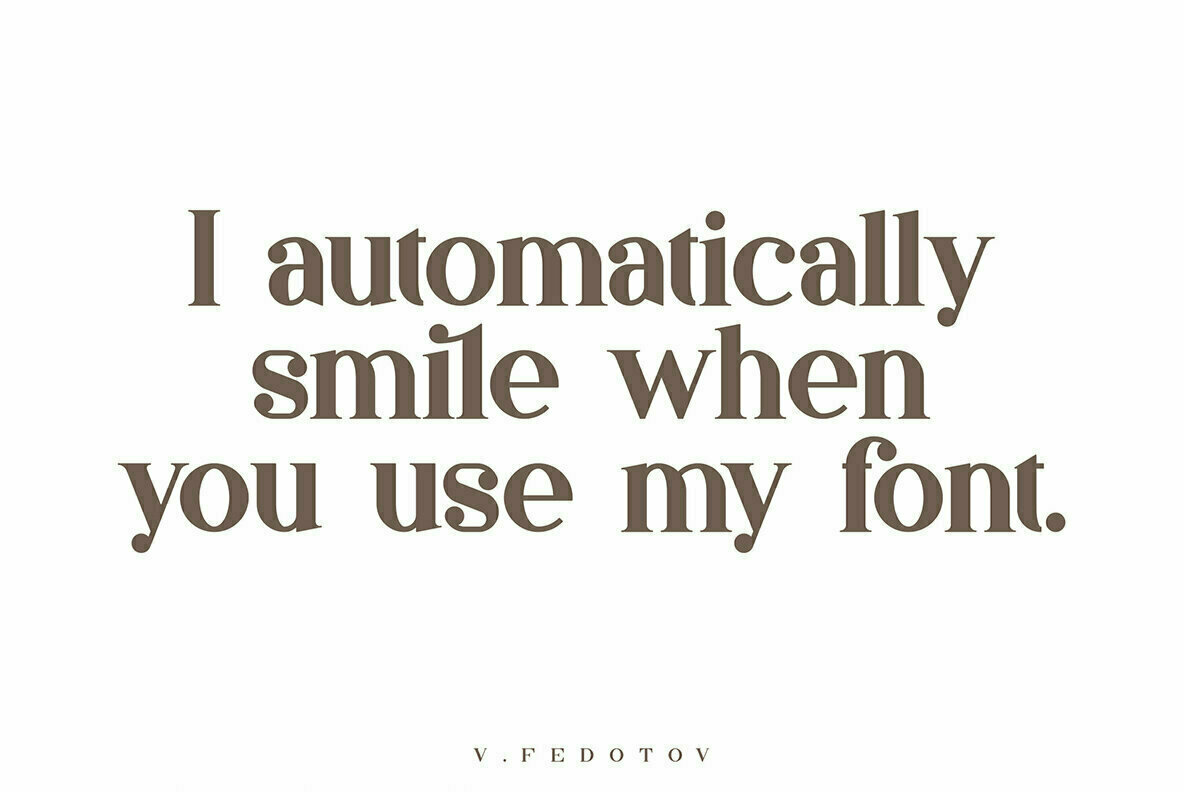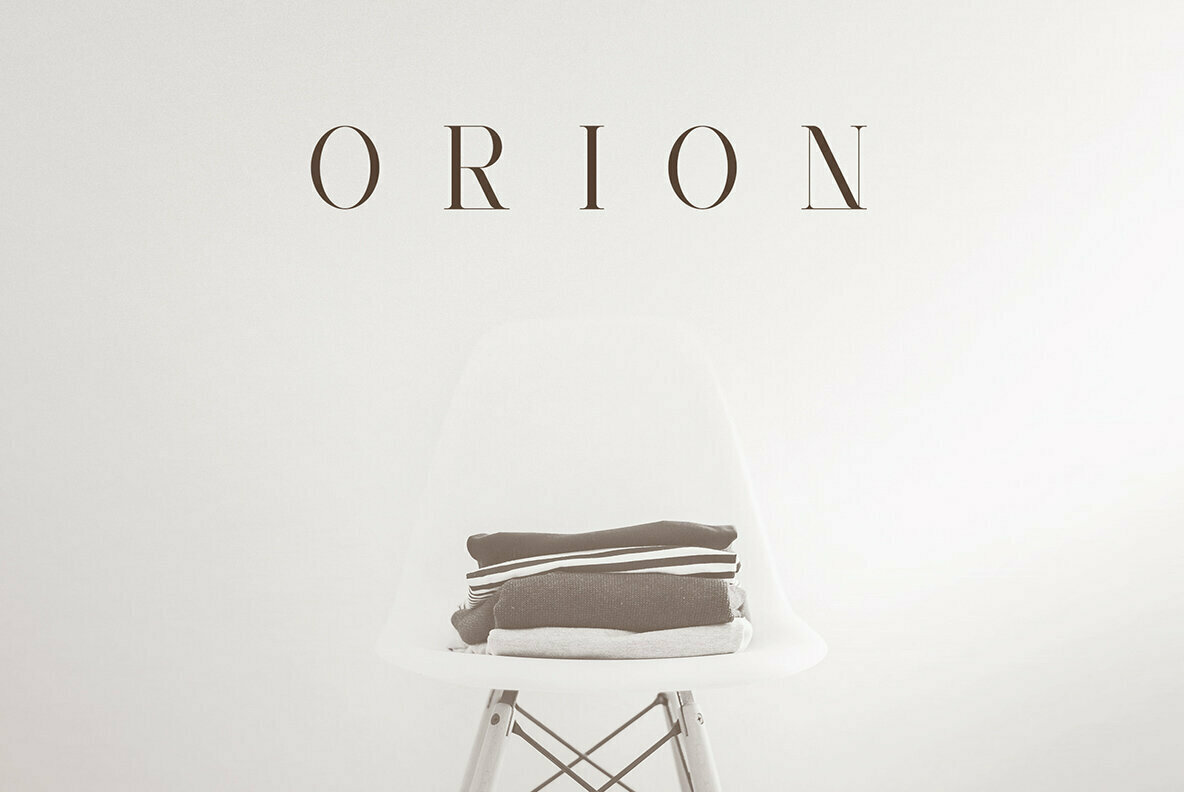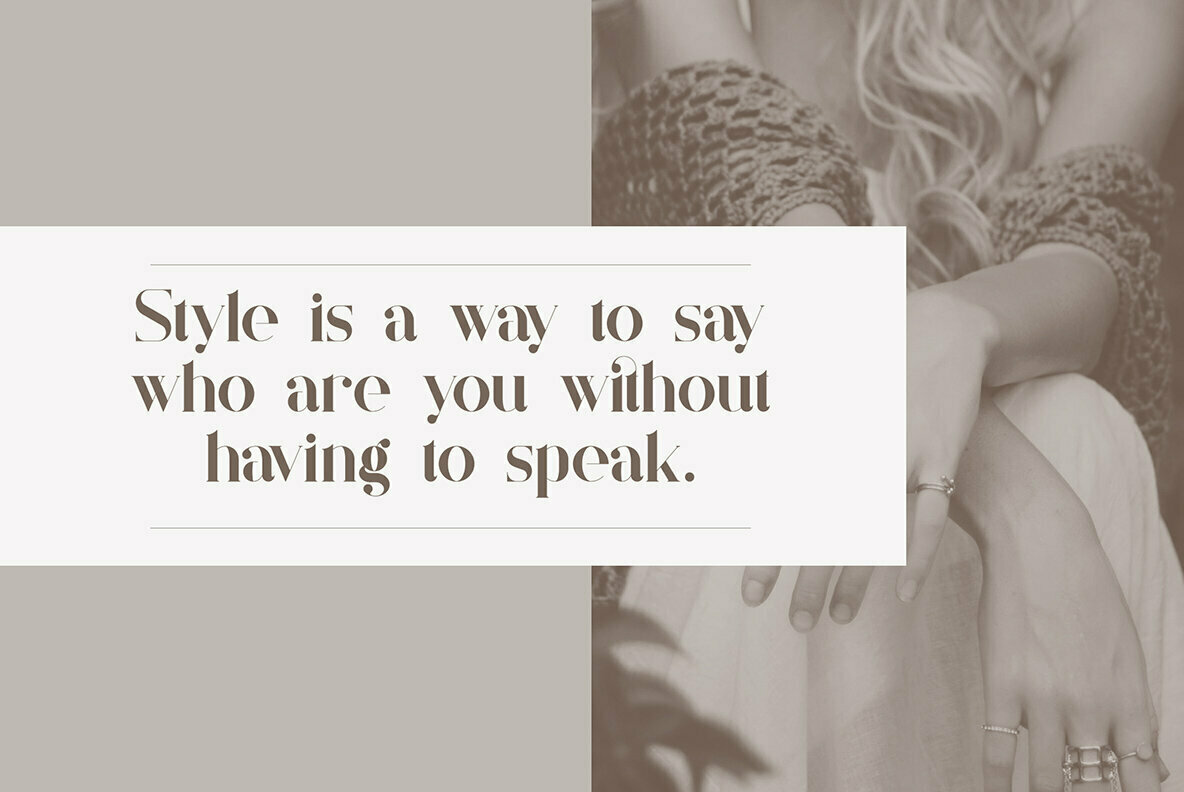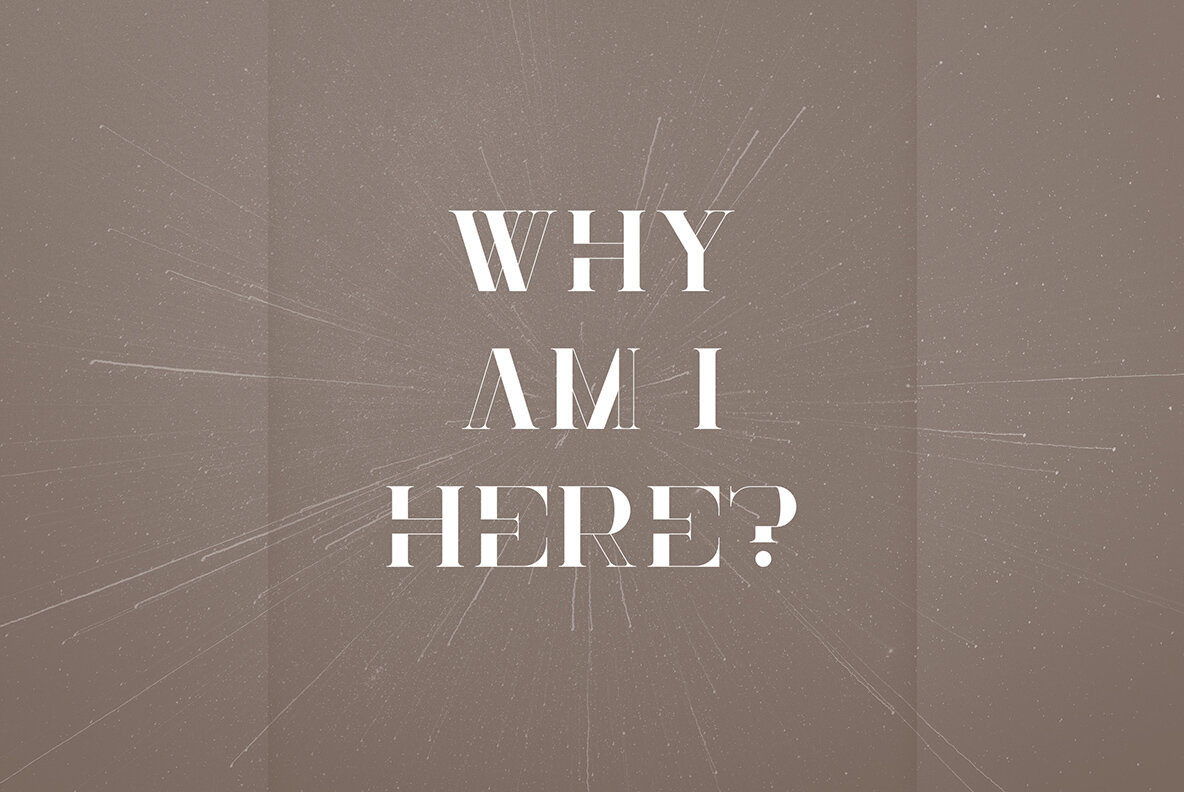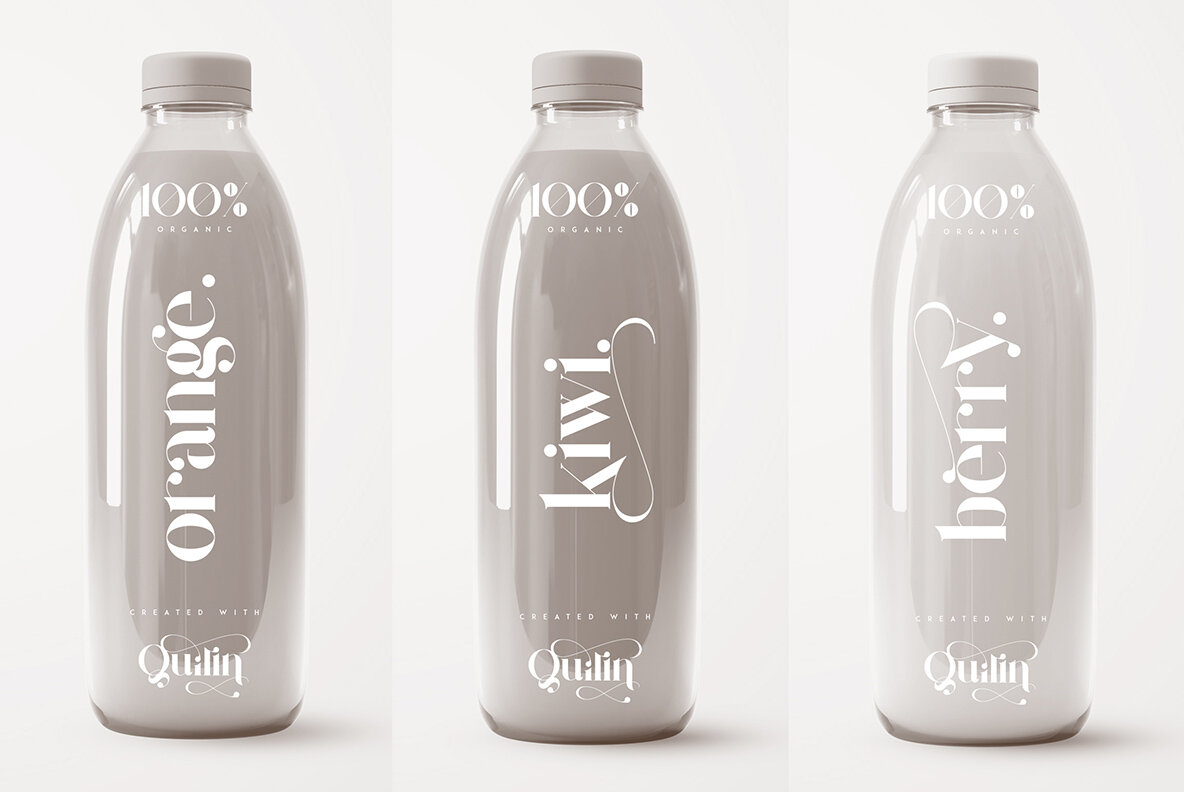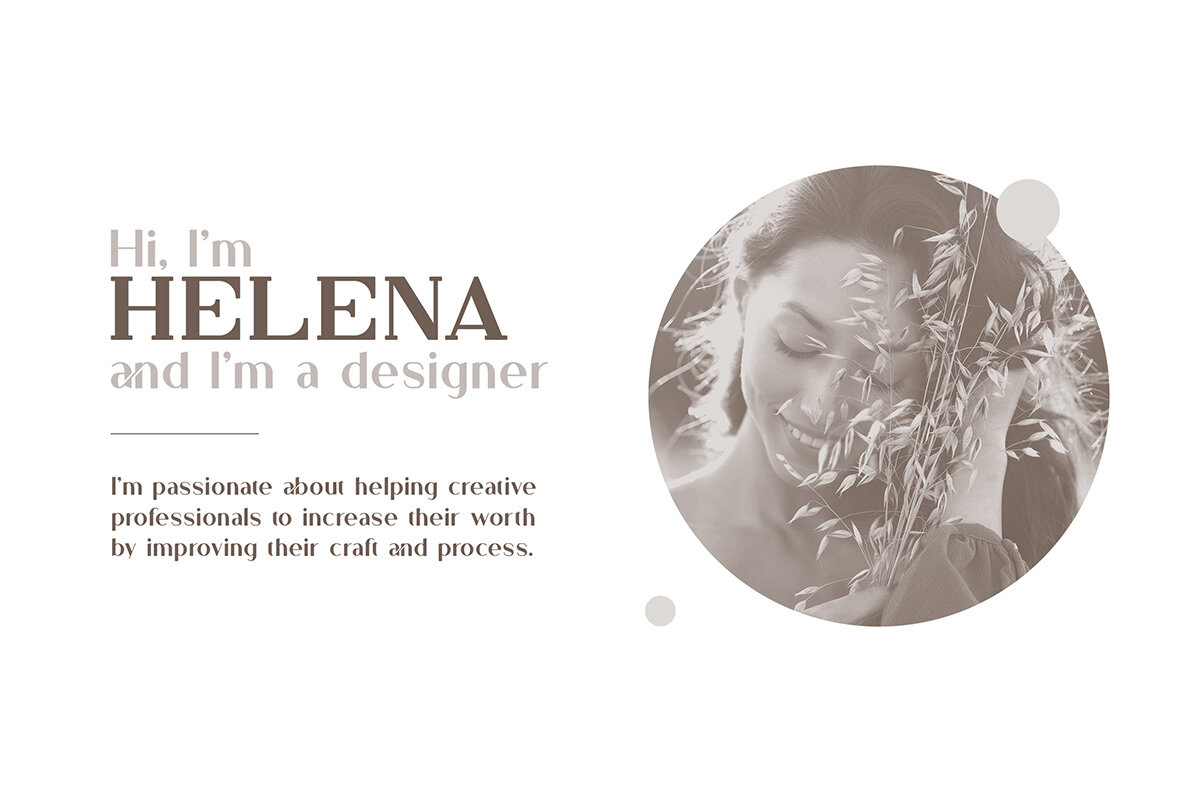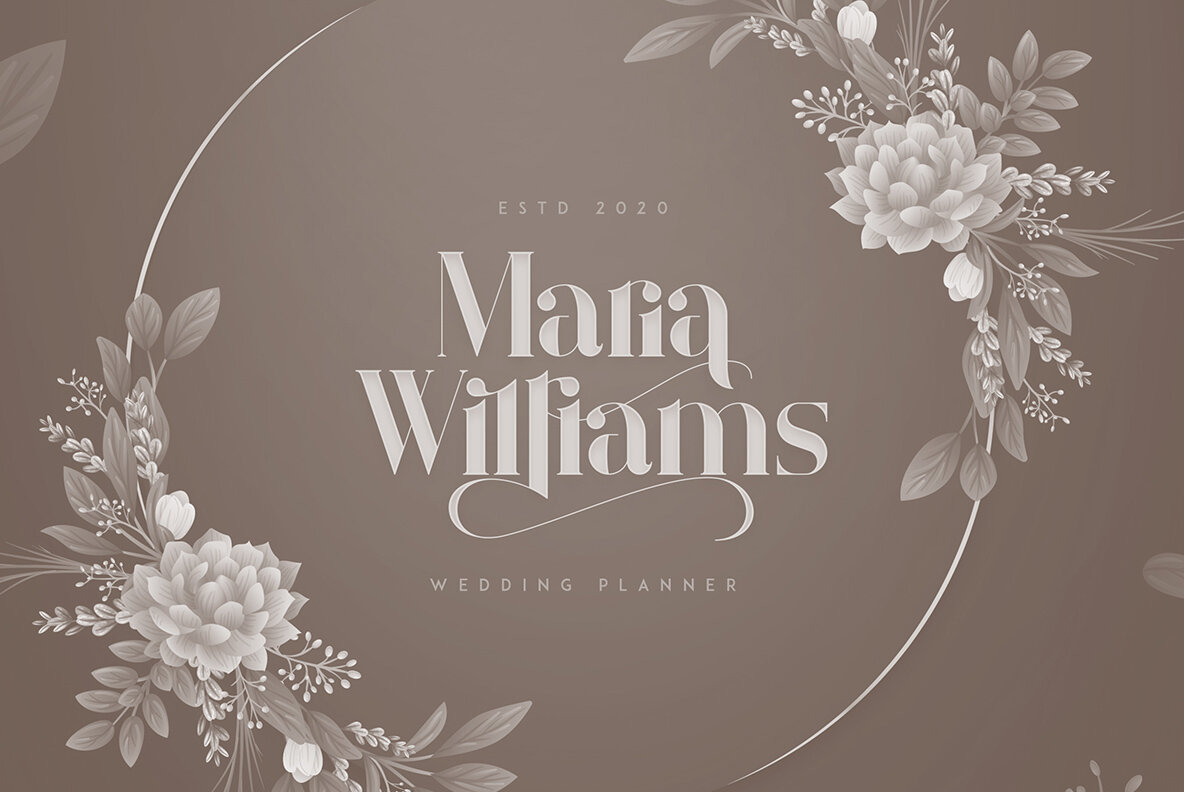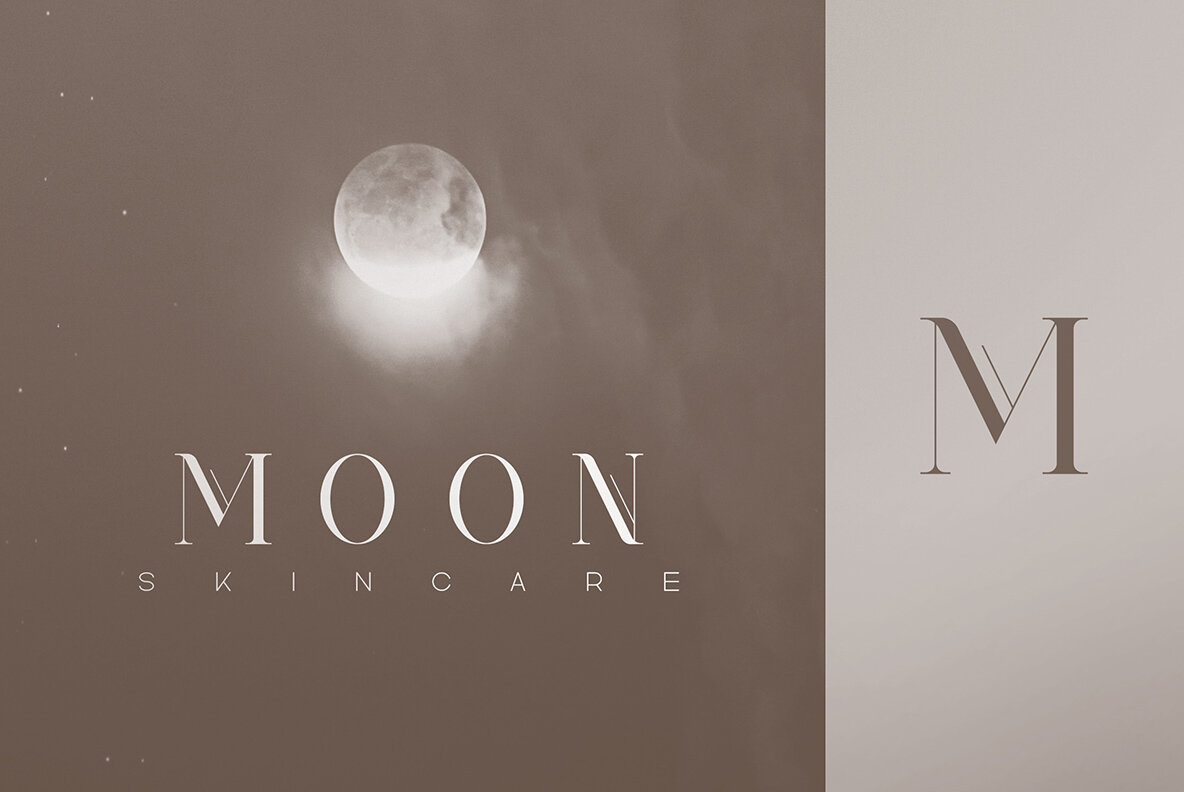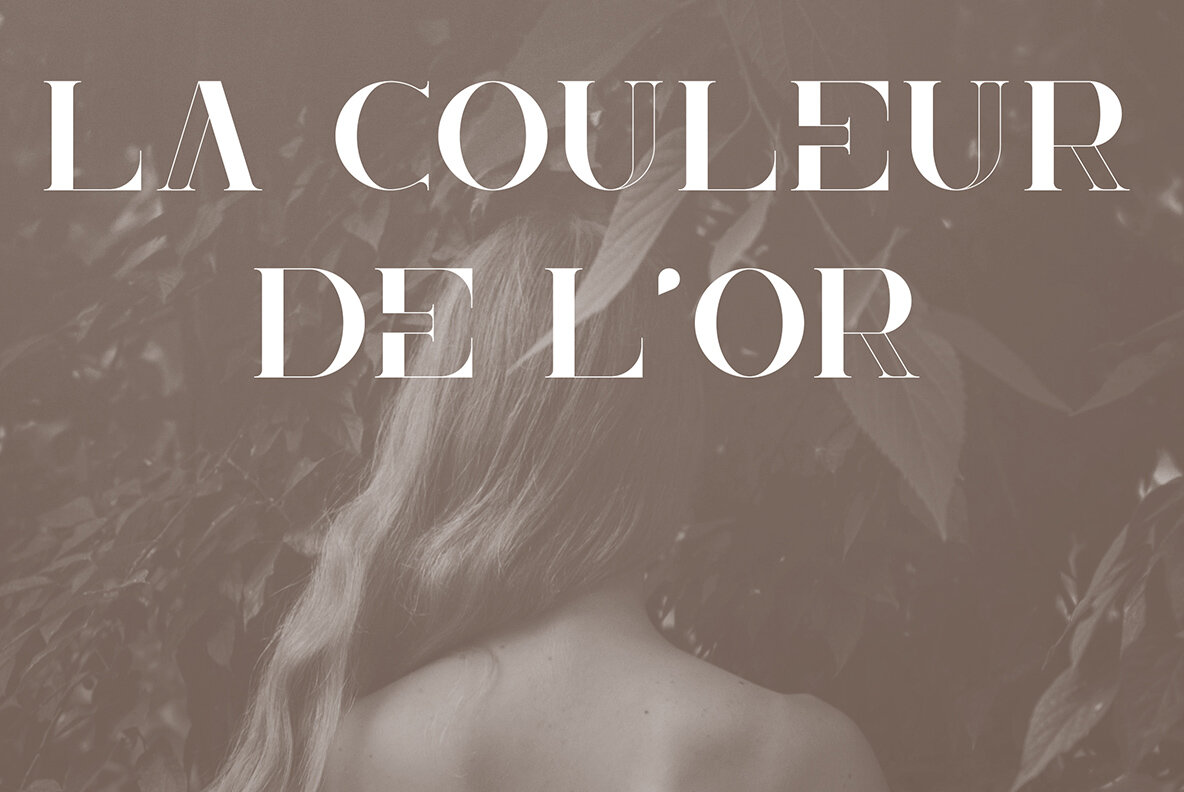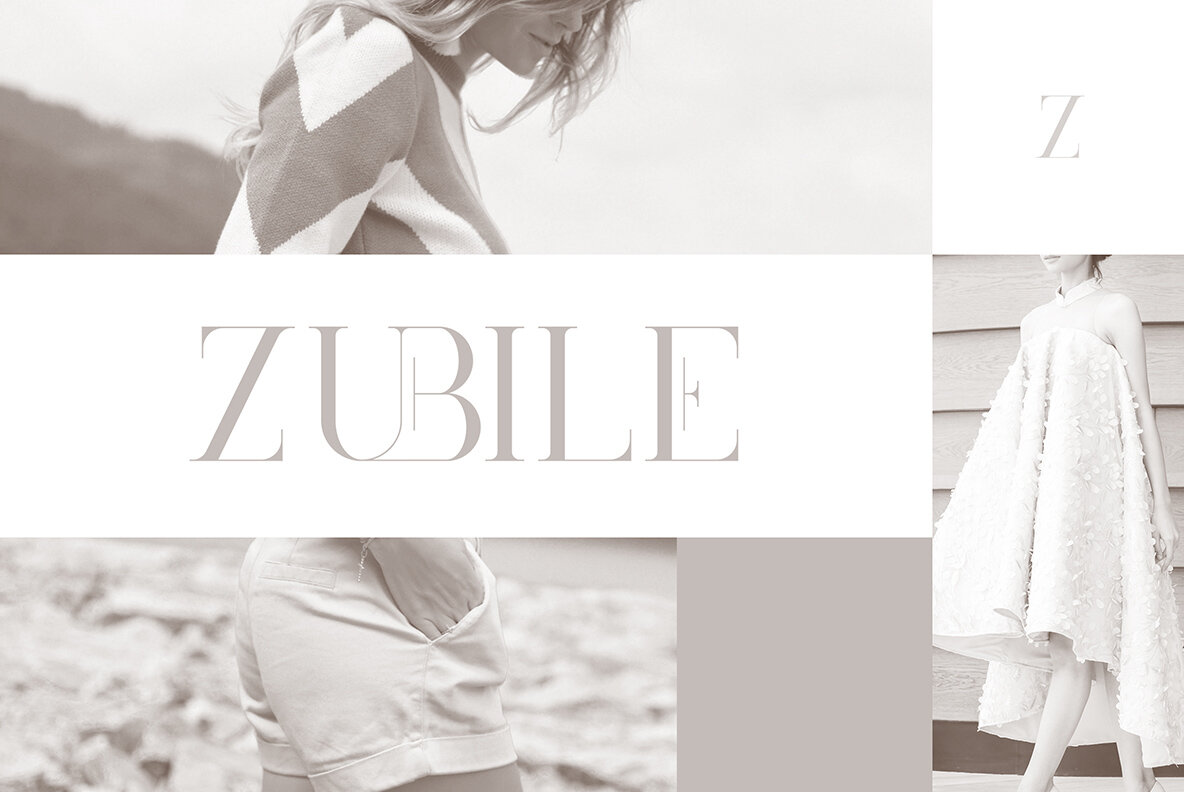
Elegant Font Collection
The Elegant Font Collection stands as a sophisticated array of 15 distinctive fonts across four unique typefaces. Melding vintage charm with modern versatility, these fonts accommodate a vast array of applications, from branding and packaging to editorial headers and artful overlays on images. To unlock the rich array of alternate glyphs, access the Glyphs panel in Adobe InDesign or Illustrator via Window > Type & Tables > Glyphs, or in Photoshop through Window > Glyphs. These options allow you to explore and integrate alternate characters with ease.Elegant Font Collection: A Vintage Typeface Selection